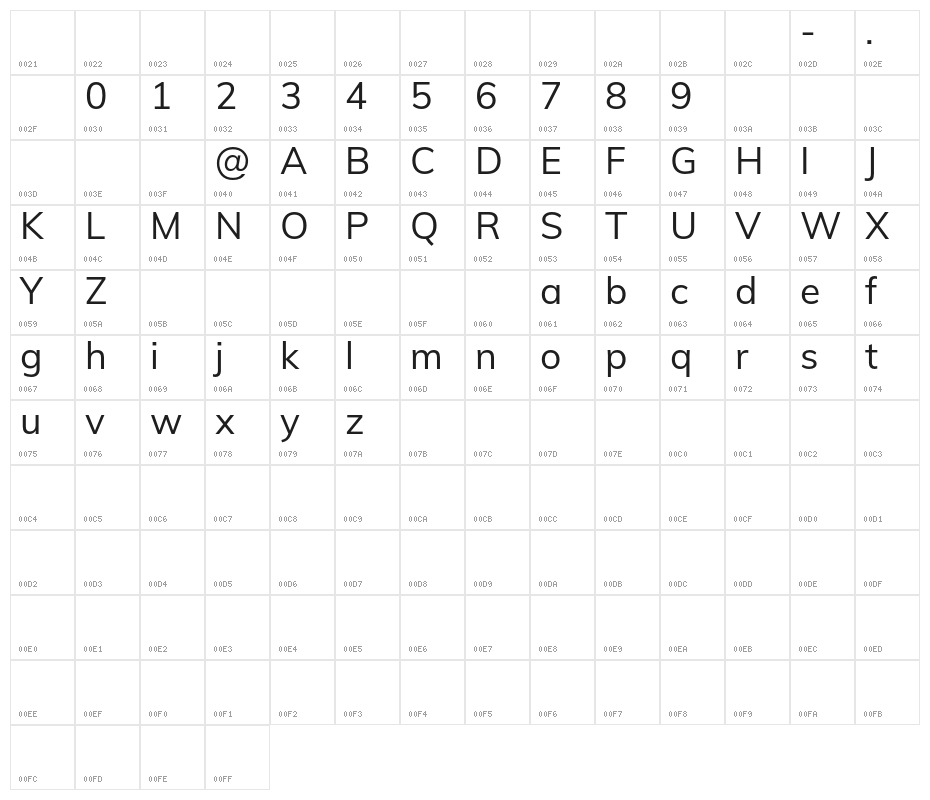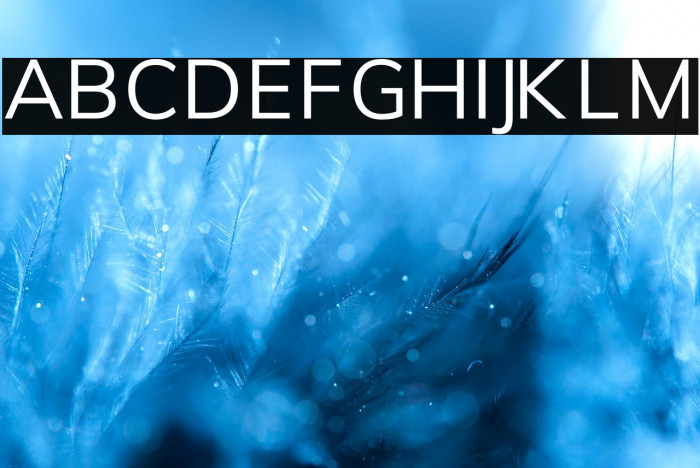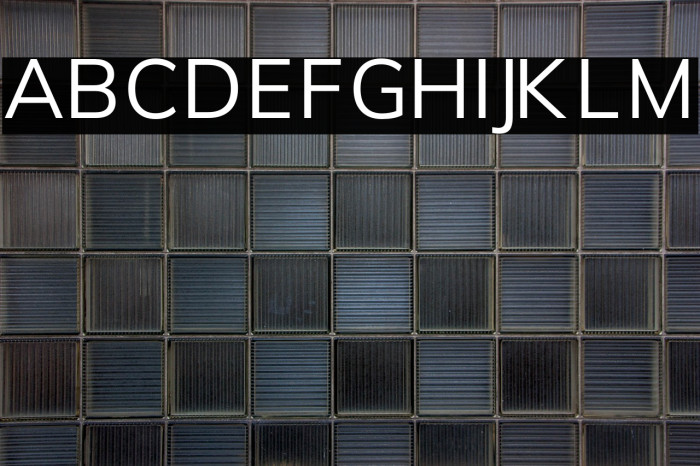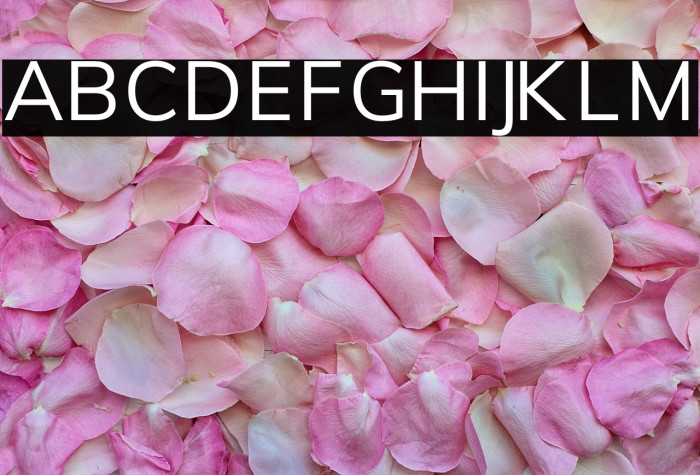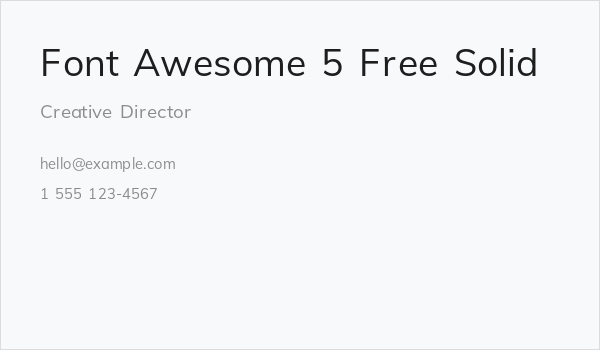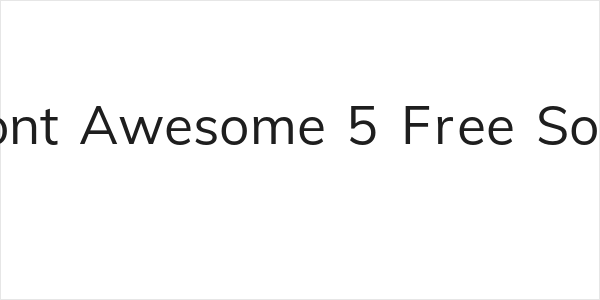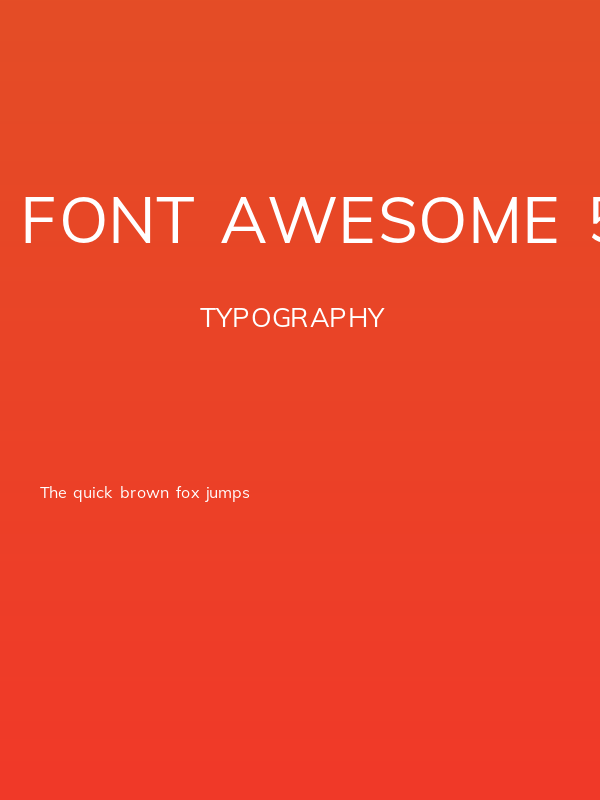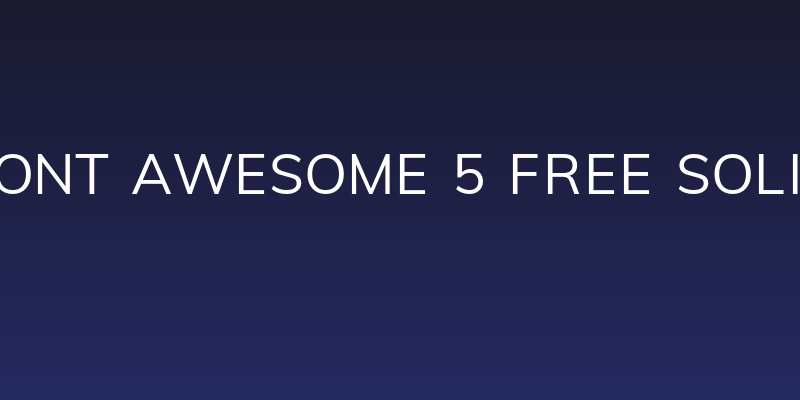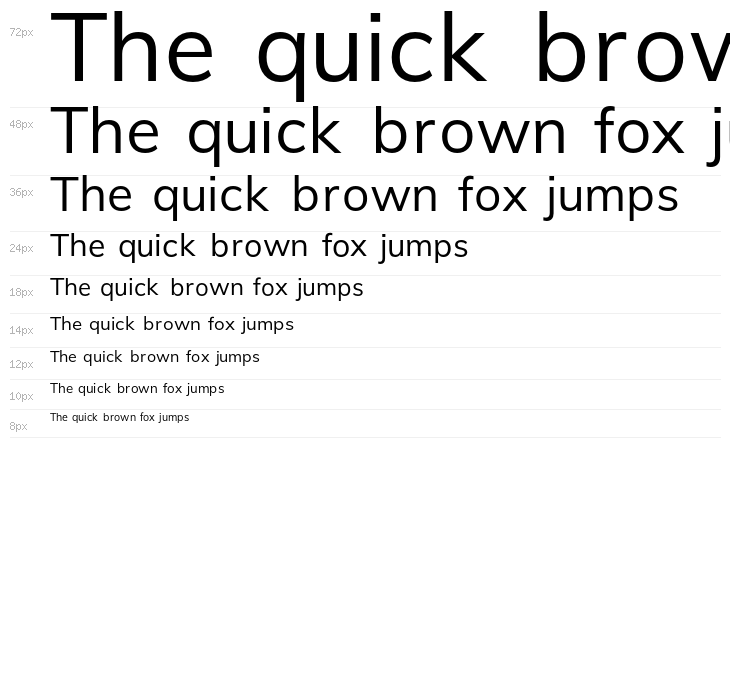
Font Awesome 5 Free Solid Font
Font Awesome 5 Free Solid Description
This font features a clean and modern sans-serif style, characterized by its uniform stroke width and geometric shapes. The uppercase letters are bold and assertive, while the lowercase letters maintain a consistent height and spacing, ensuring readability. The numerals are clear and straightforward, matching the overall simplicity of the design. Special characters are well-integrated, maintaining the font's cohesive appearance. This font is versatile, suitable for both digital and print media, and can be used effectively in a variety of design contexts.